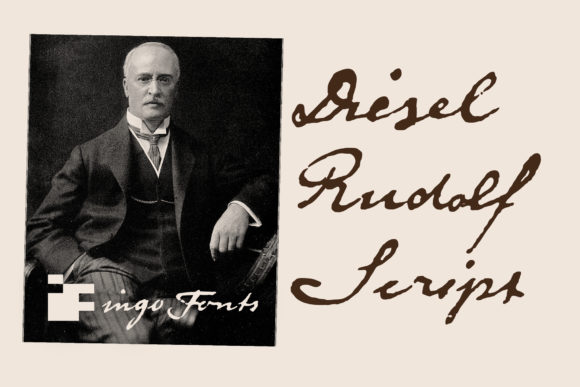
Introducing Diesel Rudolf Script Font: Captivating Handwritten Masterpiece!
Step into the realm of captivating typography with Diesel Rudolf Script Font, a remarkable creation from ingoFonts that will transform your designs into works of art. This bold and unique handwritten font exudes a natural charm that will leave an unforgettable impression on your audience.
Unleash your creativity and let Diesel Rudolf Script Font ignite your imagination. Its flowing lines and expressive curves will add a touch of elegance and sophistication to any project, whether it's a personal journal, a heartfelt love letter, or an eye-catching social media post.
Experience the versatility of Diesel Rudolf Script Font, effortlessly adapting to a wide range of design styles. From invitations and greeting cards to branding and packaging, this font will elevate your projects to new heights of visual appeal.
With Diesel Rudolf Script Font, you'll have the power to evoke emotions and convey messages with unparalleled impact. Its expressive nature will tug at your readers' heartstrings, making your words resonate with genuine connection.